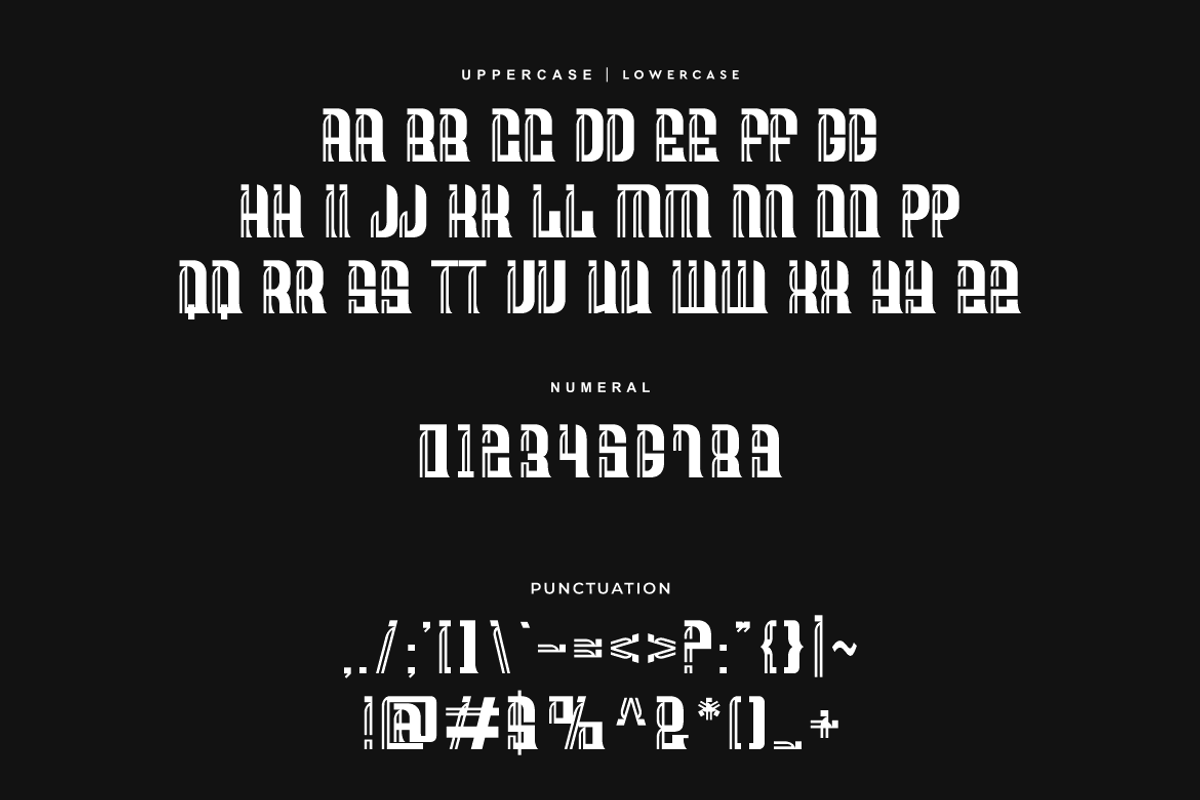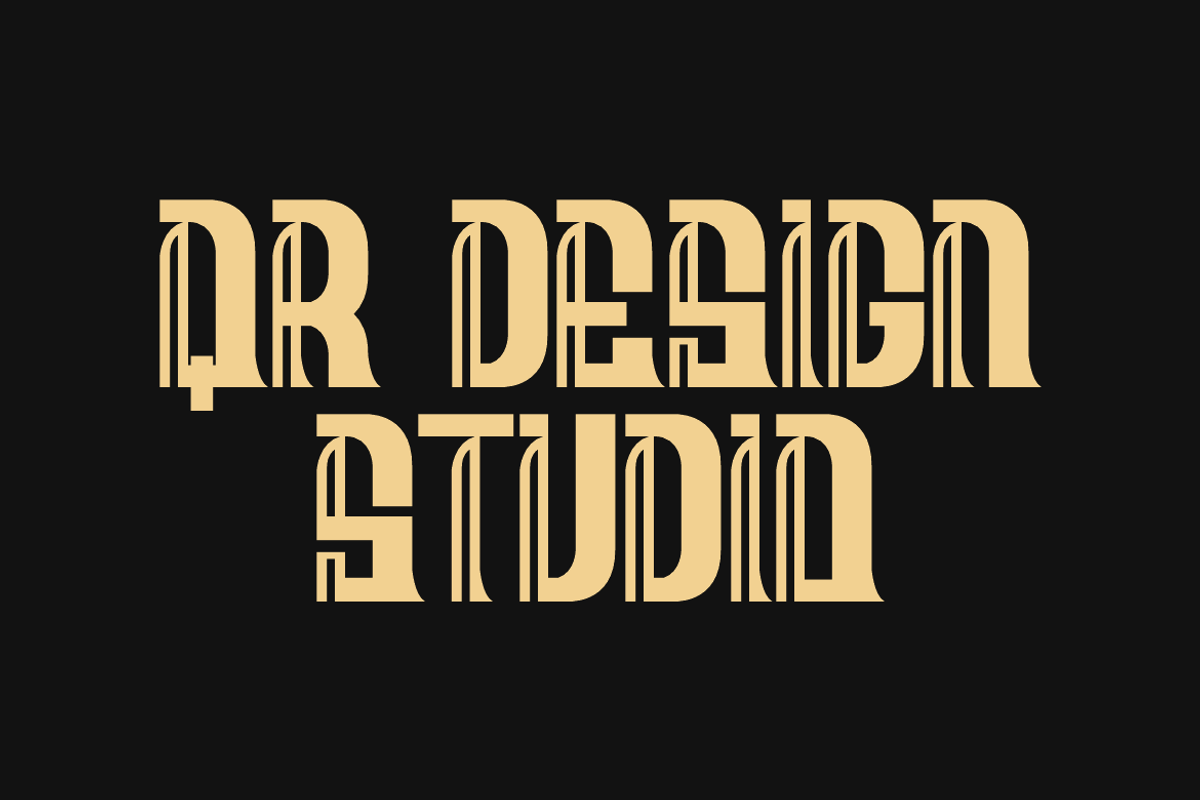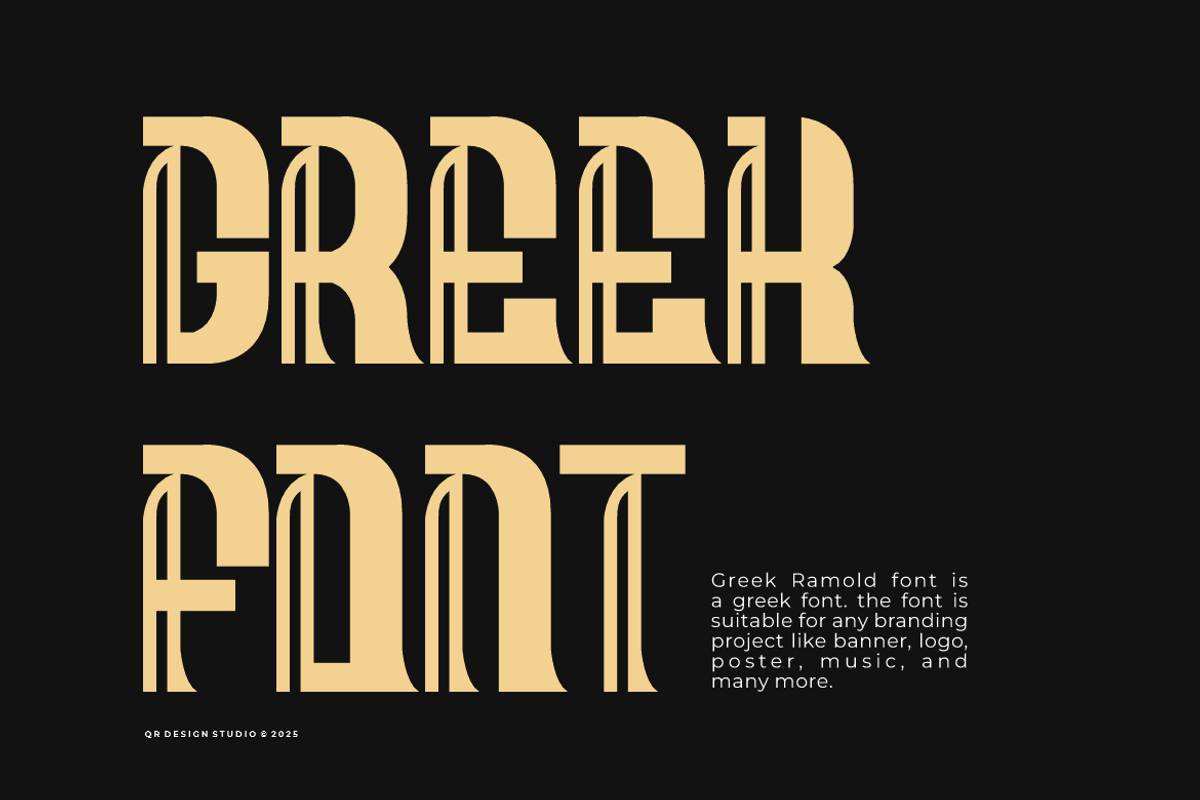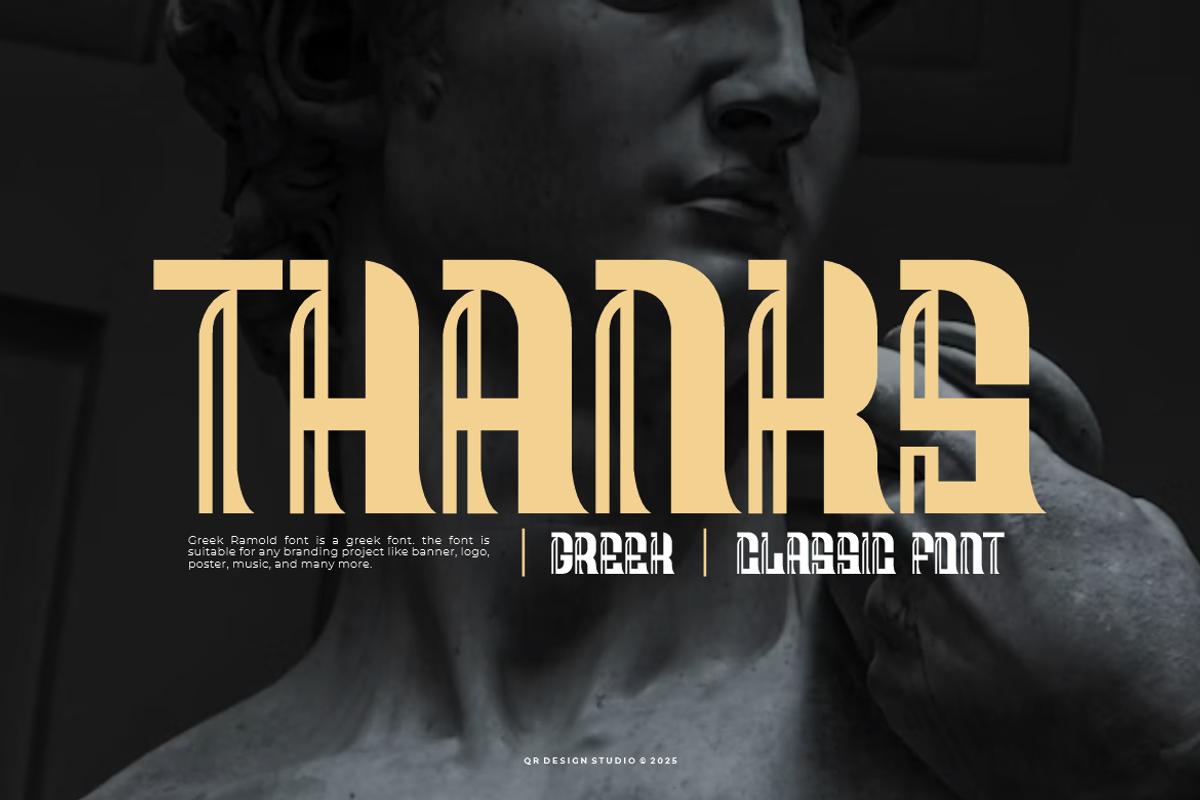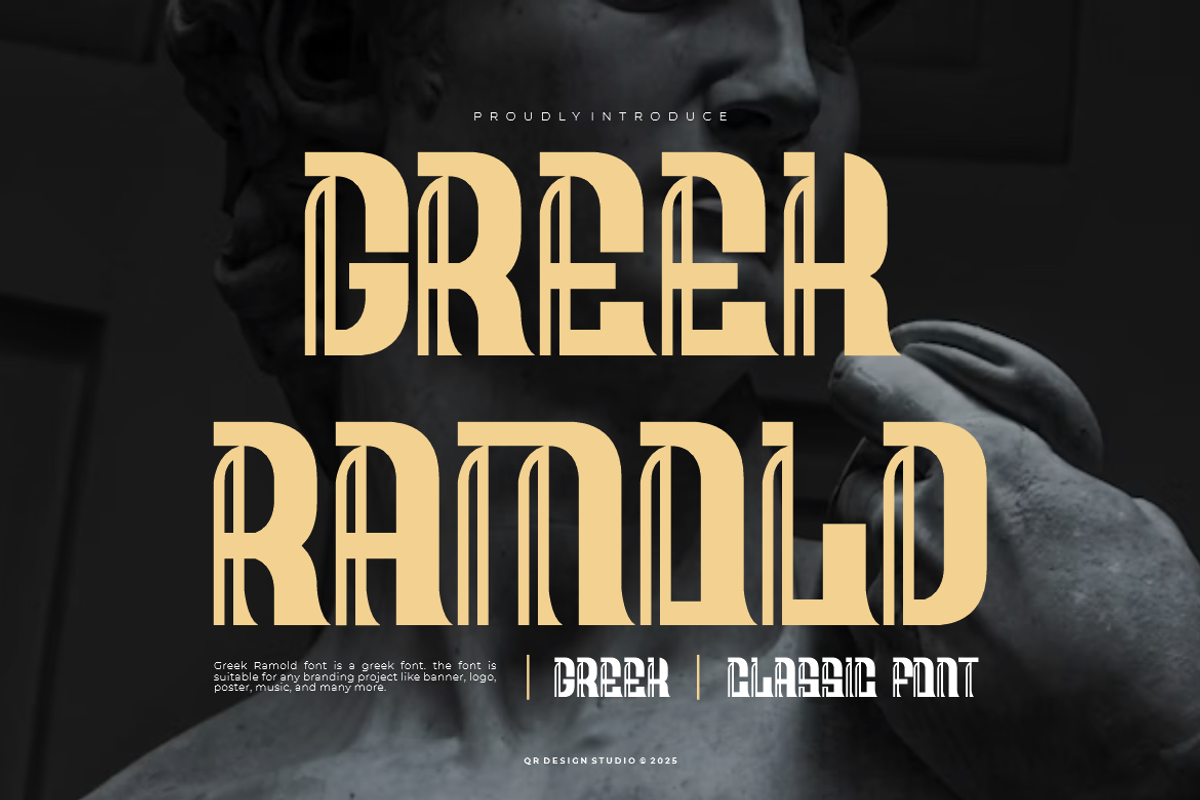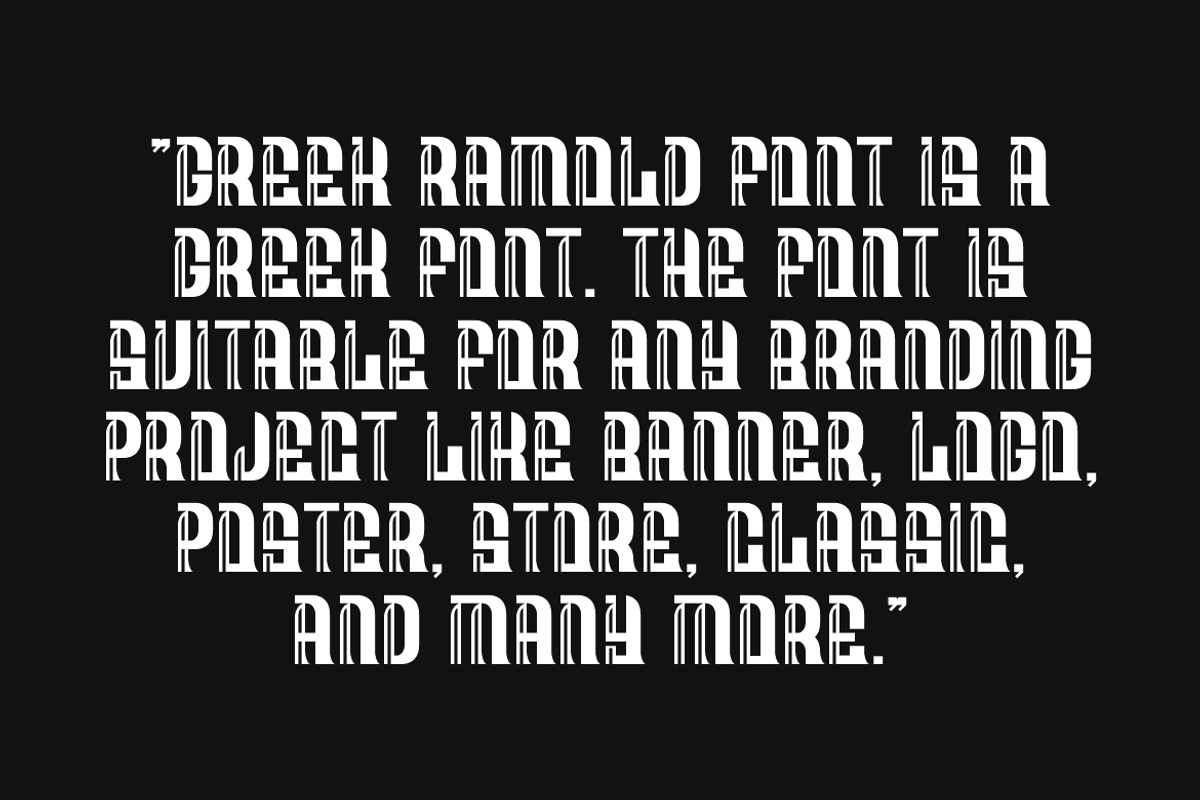
Greek Ramold Font
Greek Ramold Font is a bold and authentic display font. The font is suitable for any branding project like poster, logo, sport, and many more. Outstanding in a wide range of contexts.